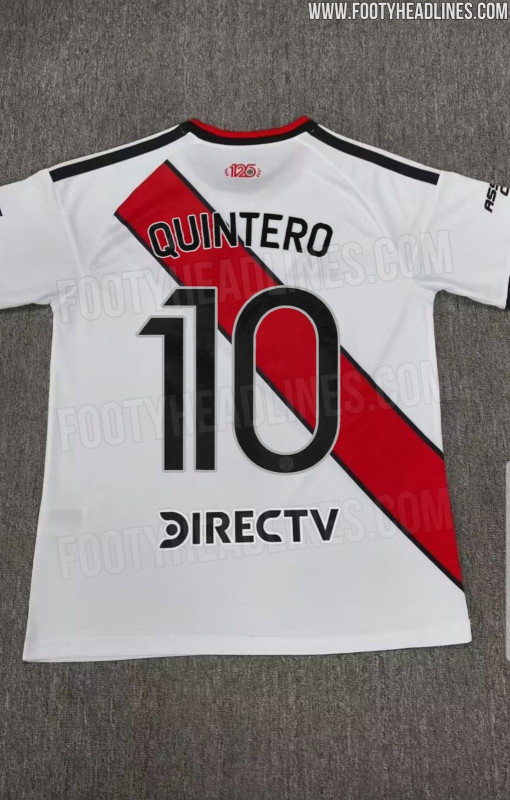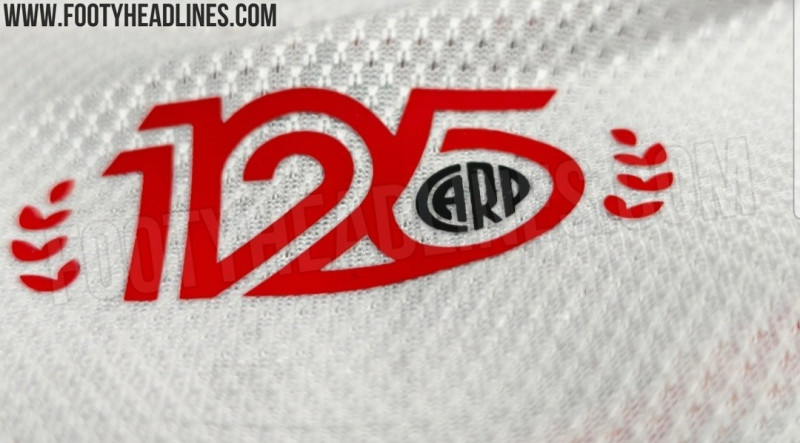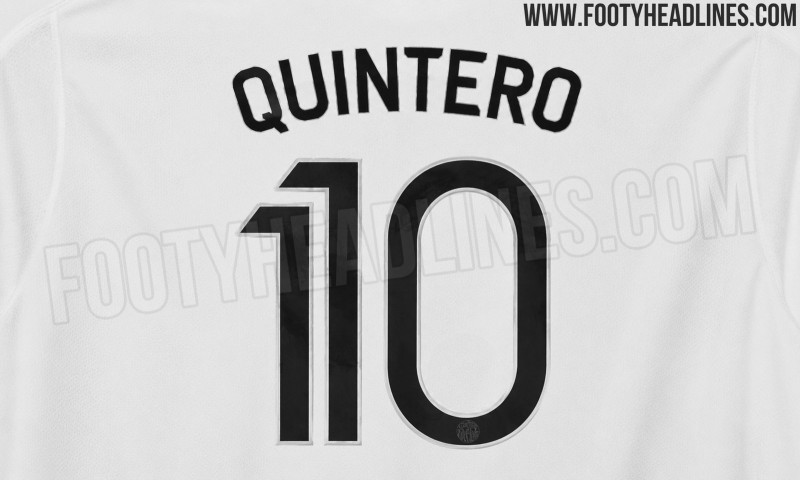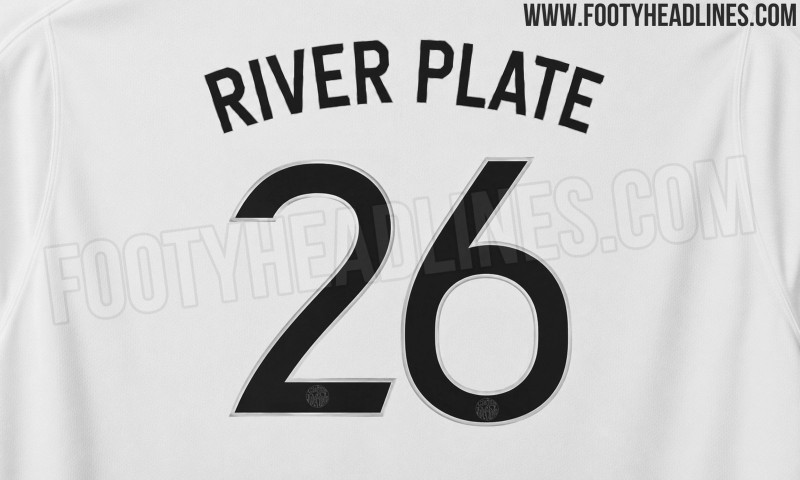
We can leak the River Plate 26-27 kit typeface, to be featured on the 26-27 home kit. What is particularly unique is the number 1, which comes with actually two 1 for a very uncommon look. This style can also be found in the 125-year anniversary detail on the back collar.